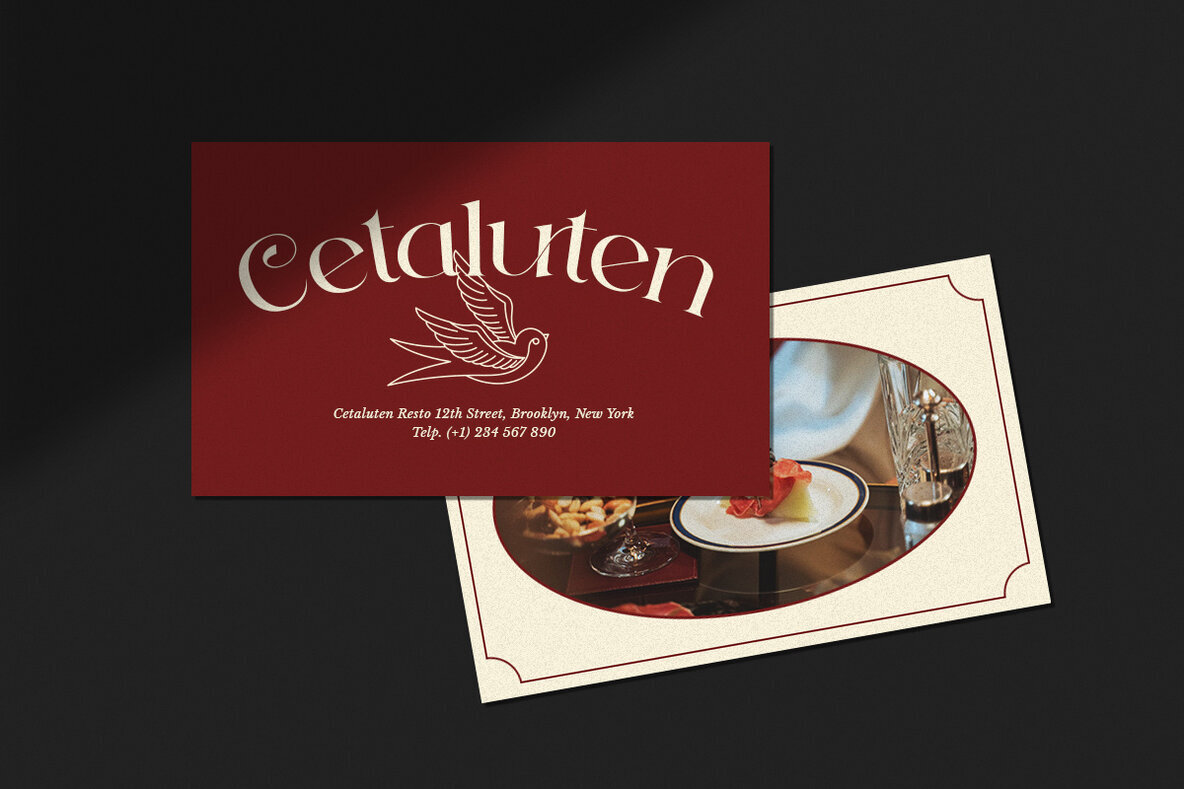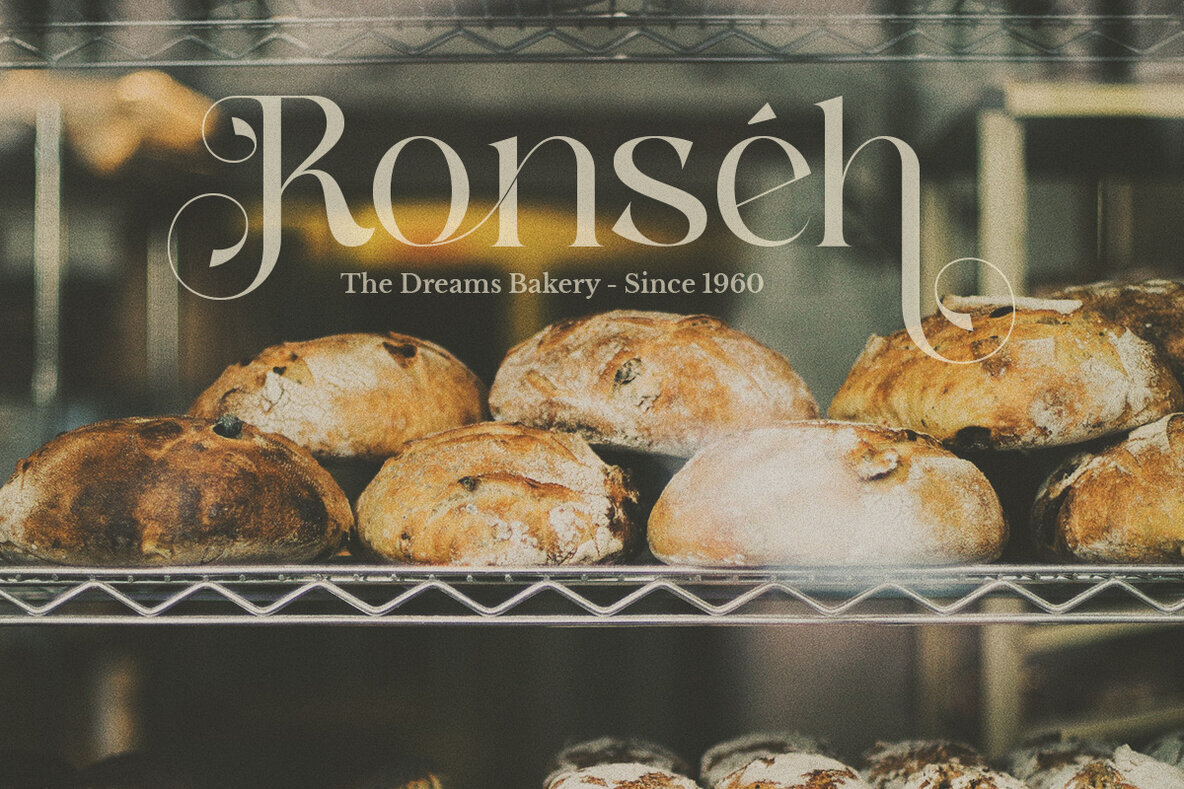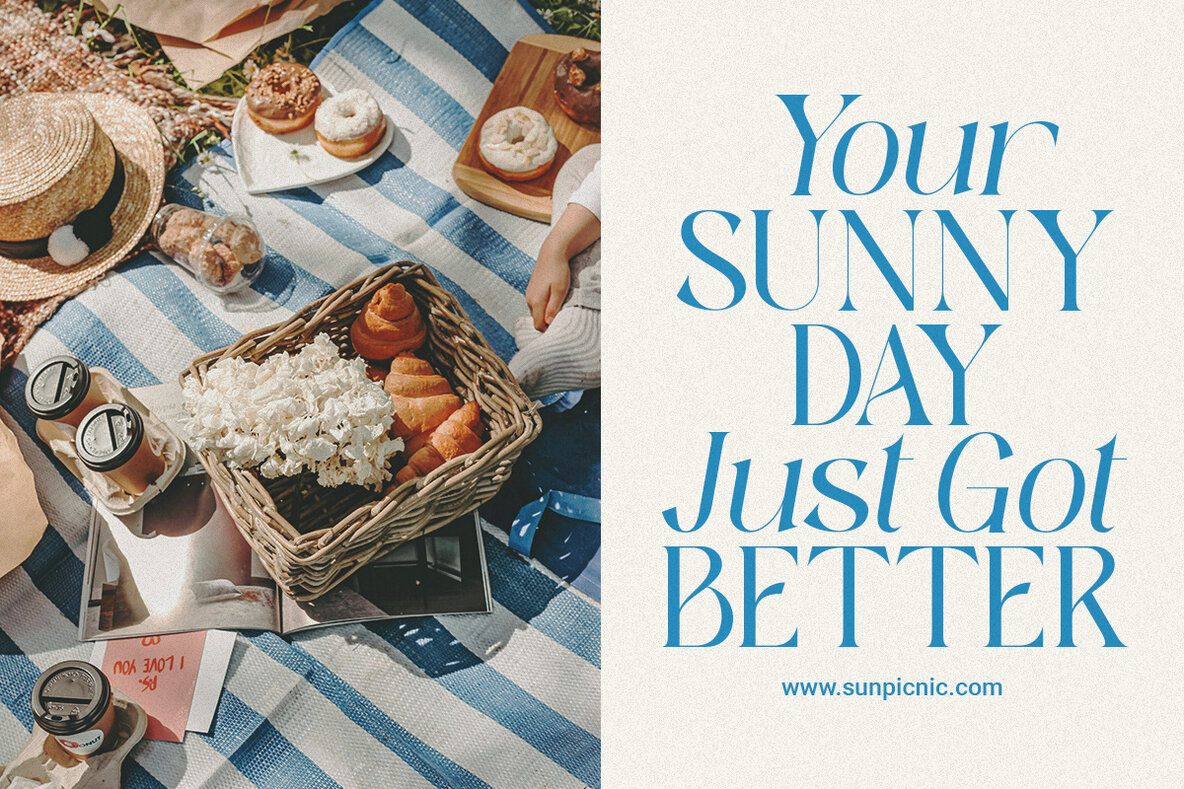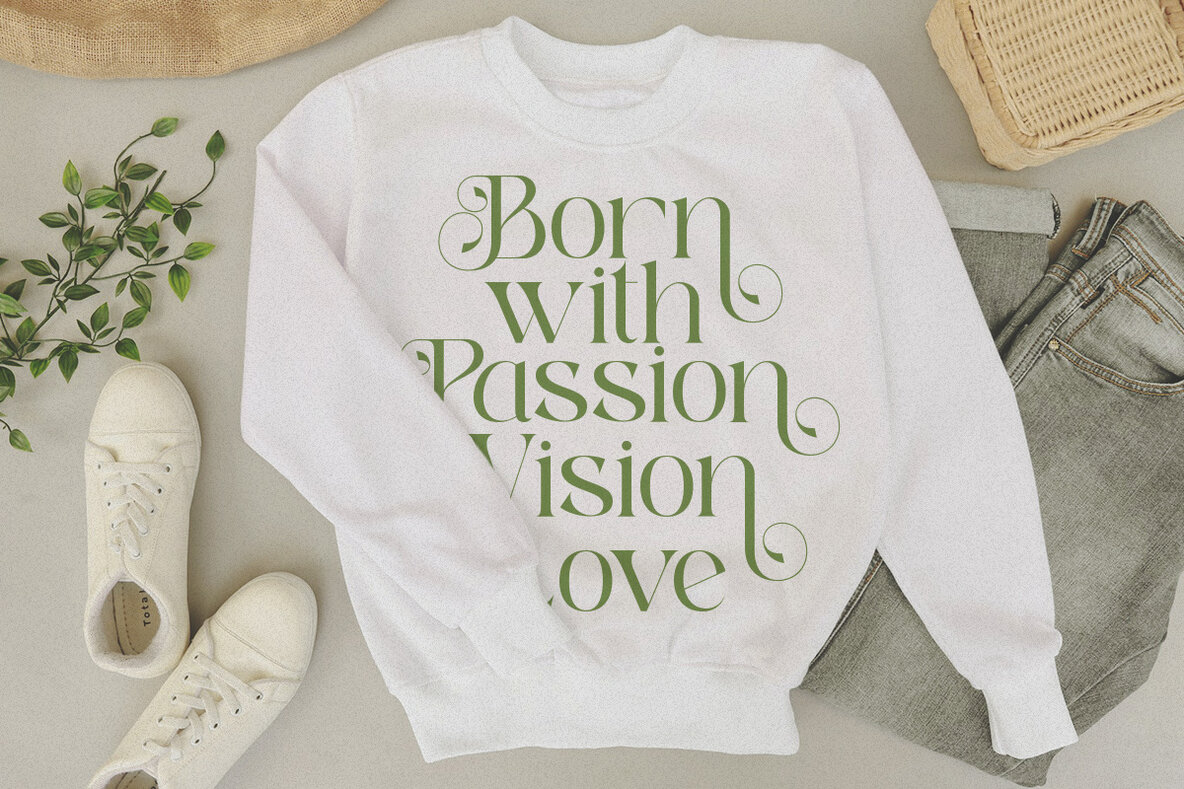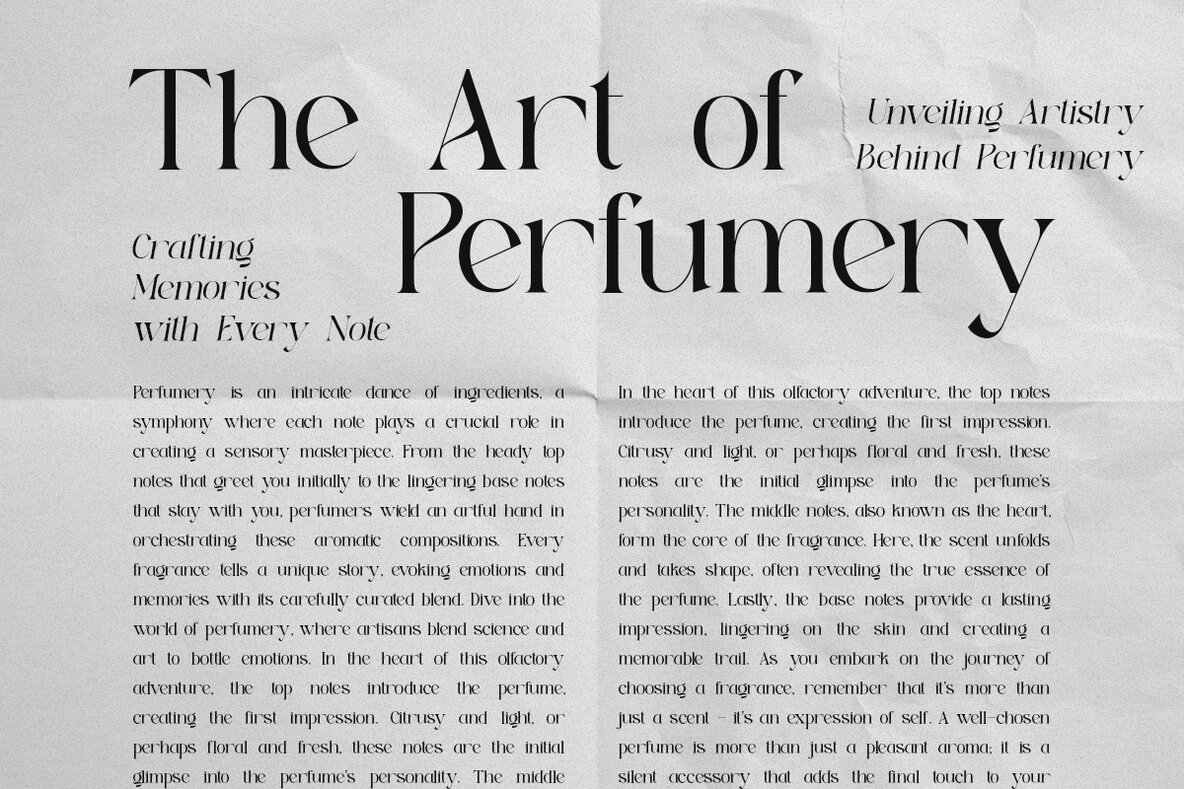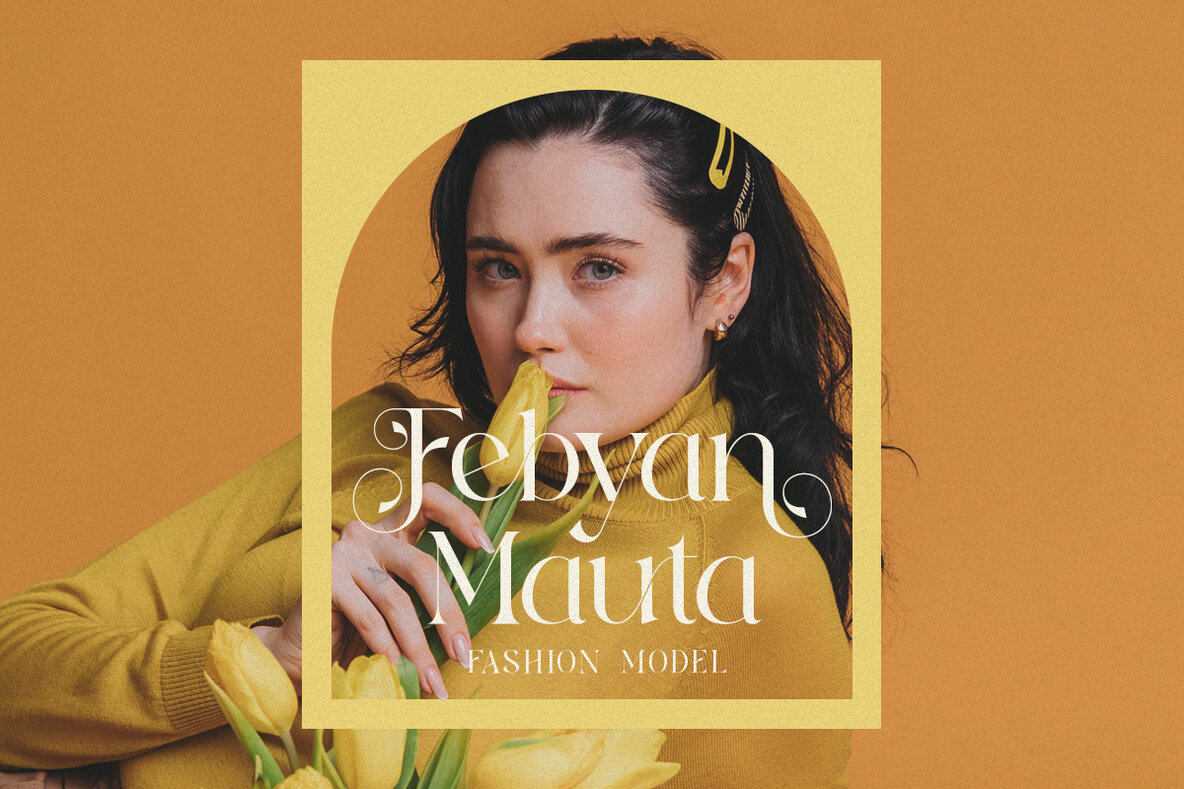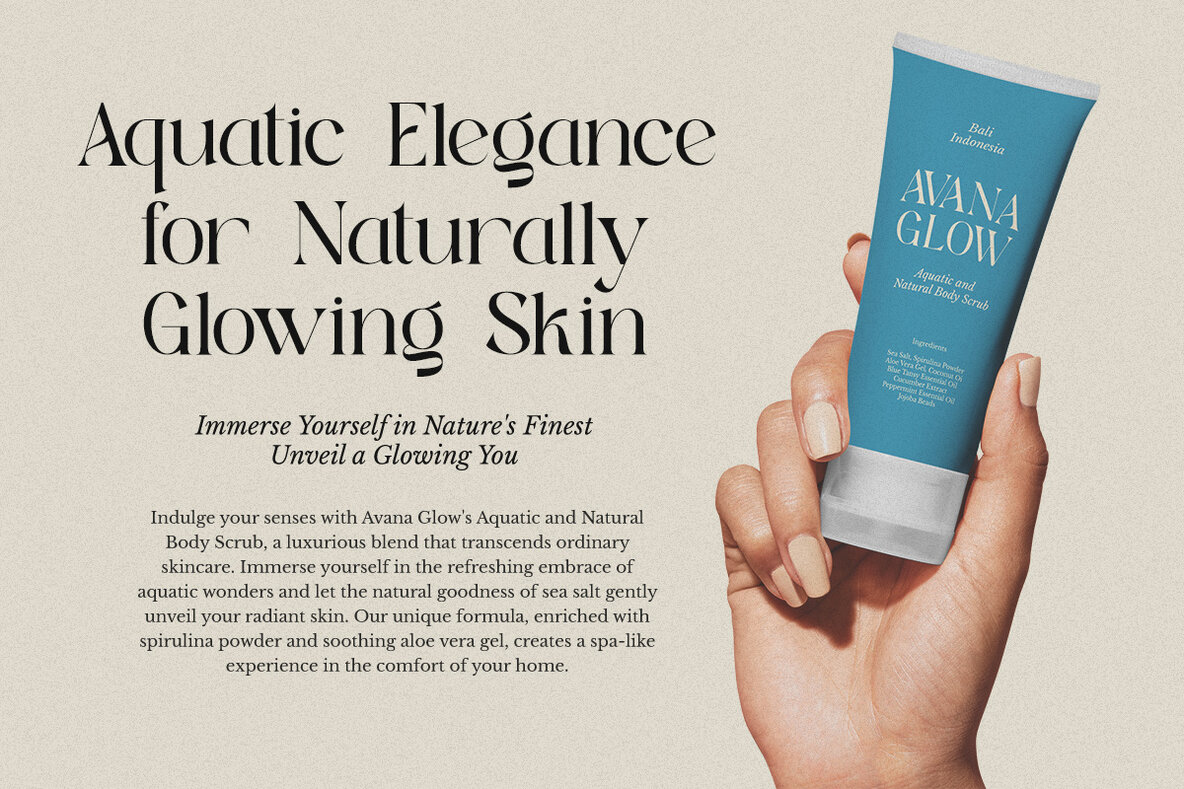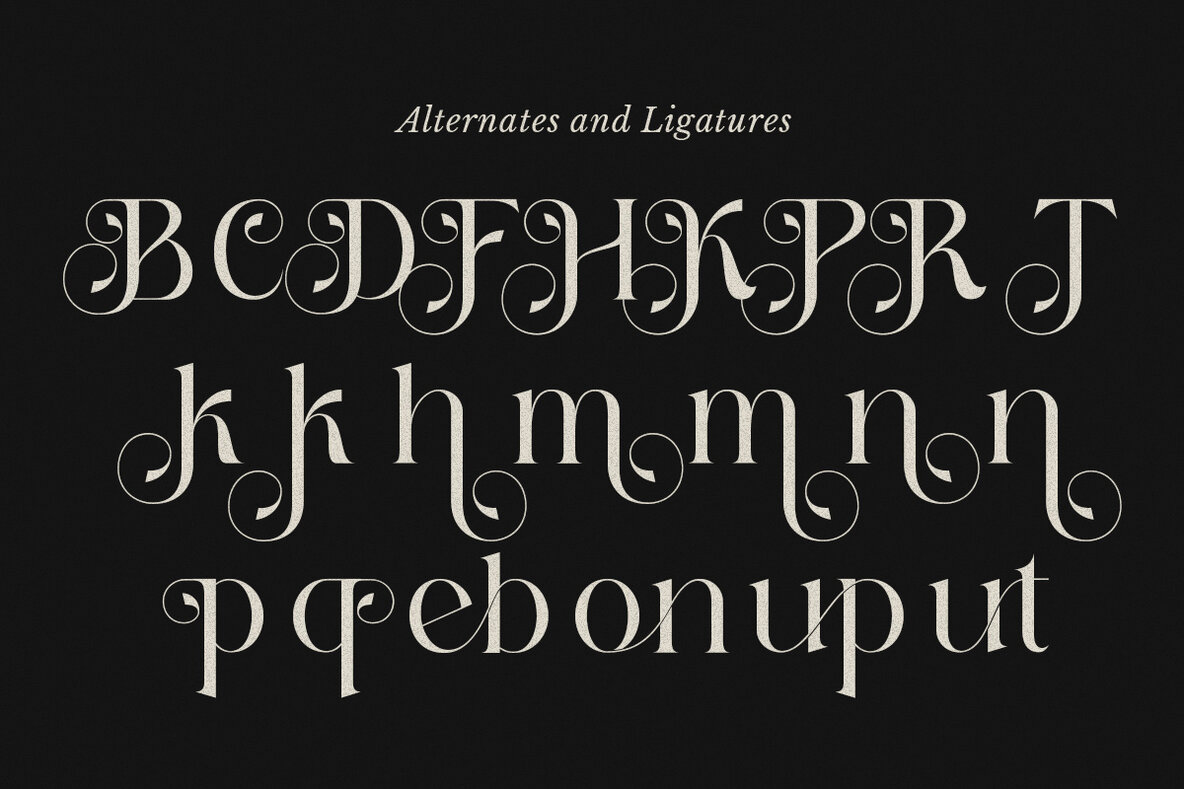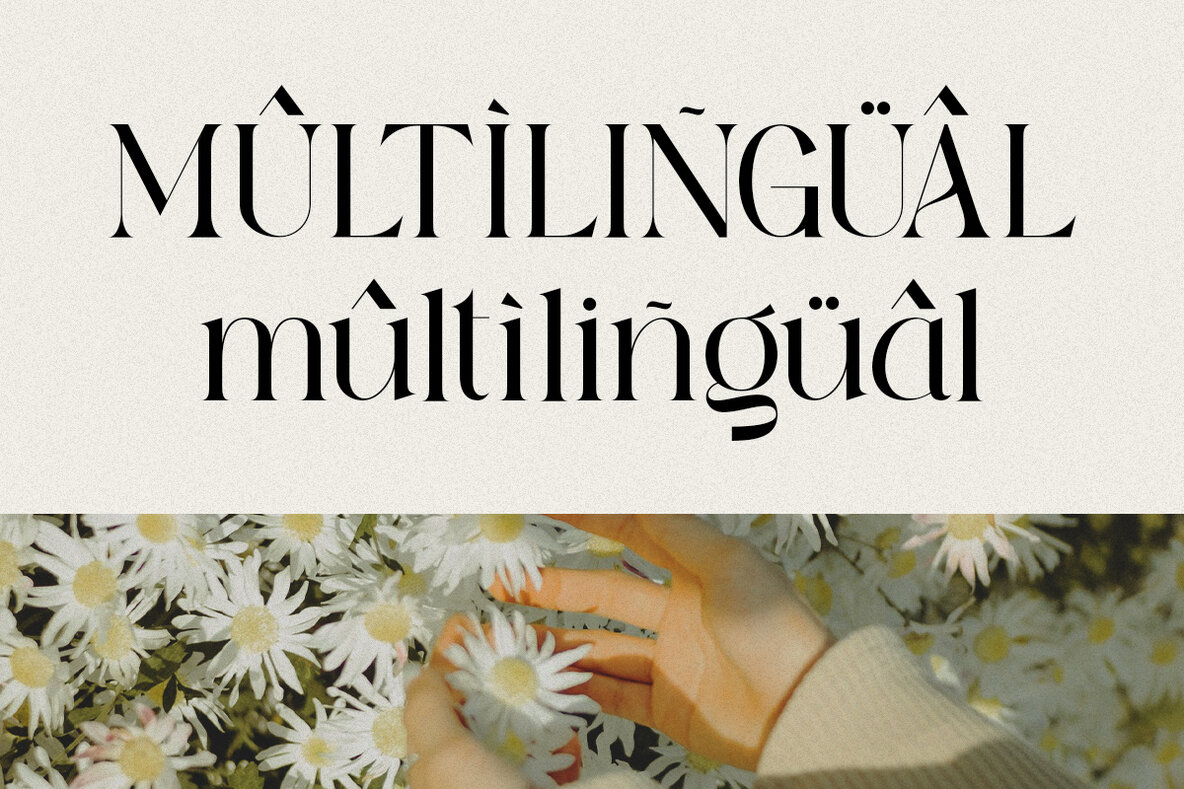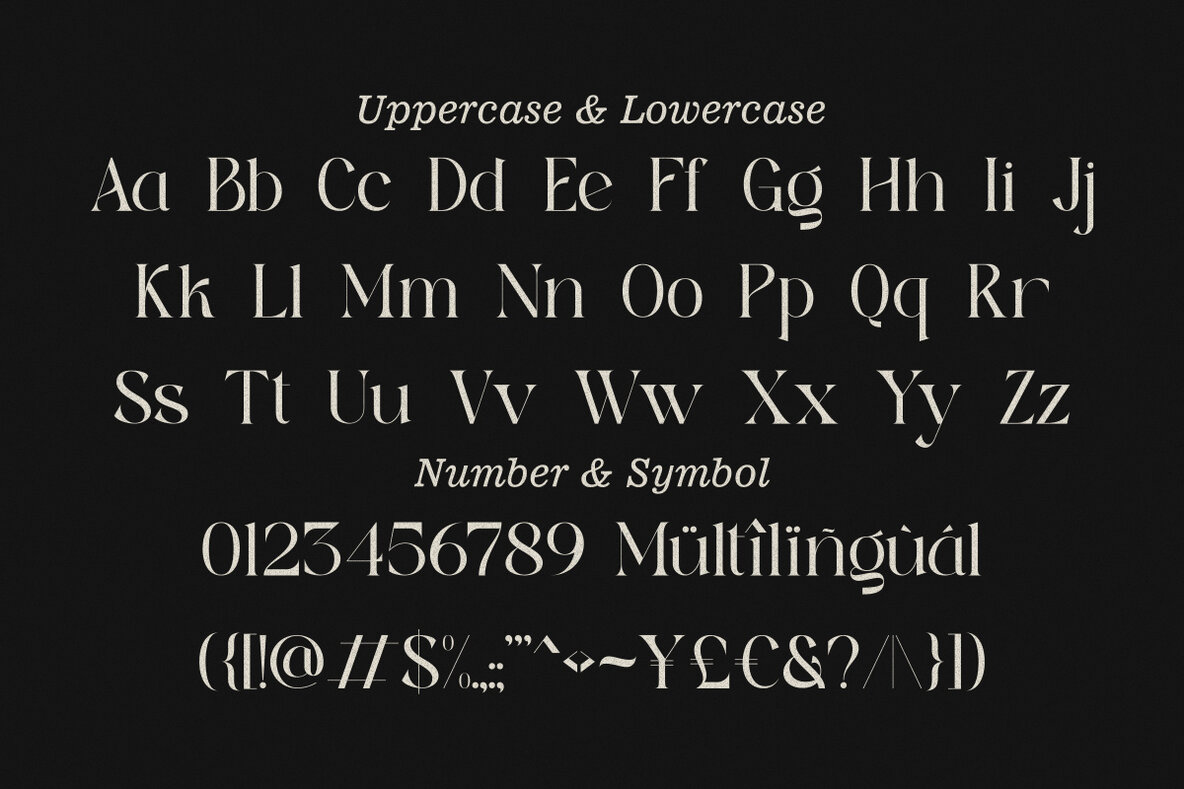
Bloom Haven Font
Bloom Haven Regular
Introducing Bloom Haven, a sophisticated thin serif font designed to add elegance and uniqueness to your projects. Featuring refined serifs and exquisite letterforms, Bloom Haven is ideal for wedding invitations, corporate branding, editorial layouts, and cinematic posters. The font's delicate strokes and modern minimalism make it versatile and suitable for a wide range of design applications.
Inspired by classic serif fonts with a contemporary twist, Bloom Haven offers a timeless yet modern aesthetic. Its unique alternates and ligatures provide a versatile toolkit for creating distinctive typography. Whether you're working on love-themed projects, fancy event invitations, or nature-inspired designs, Bloom Haven brings a refined touch to your work. Perfect for high-end projects, college materials, and beach-themed designs, this font ensures your work always looks fresh and captivating. Features include uppercase and lowercase letters, alternates and ligatures, numerals and punctuation, accented characters, multilingual support, and Unicode PUA encoding.